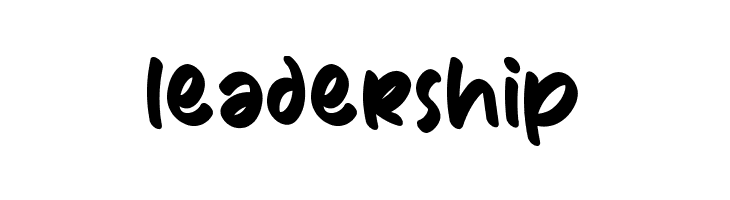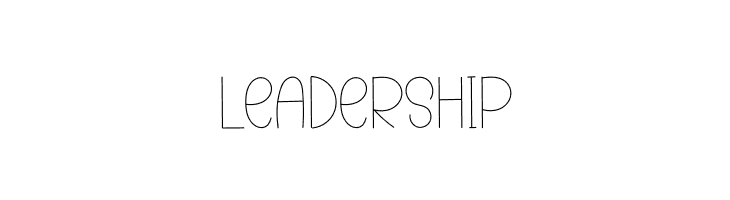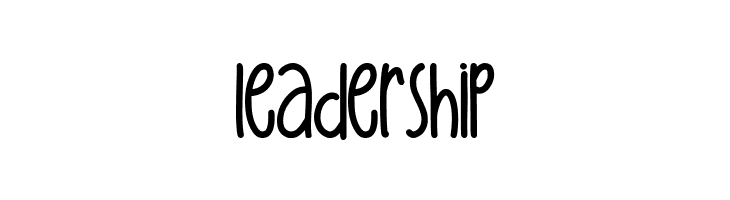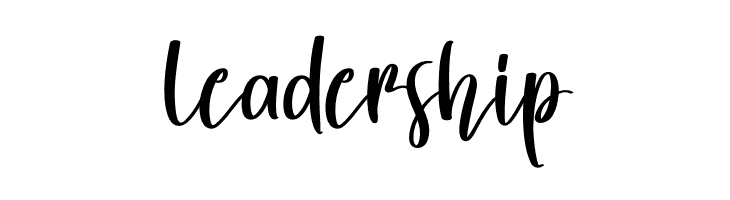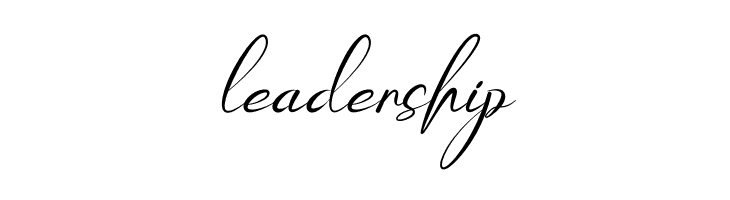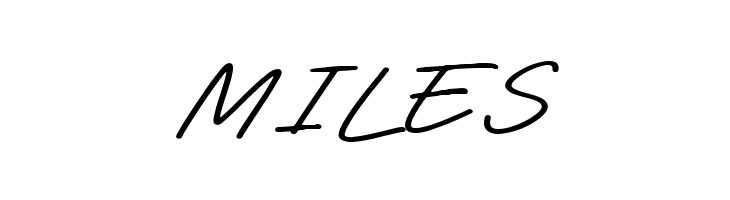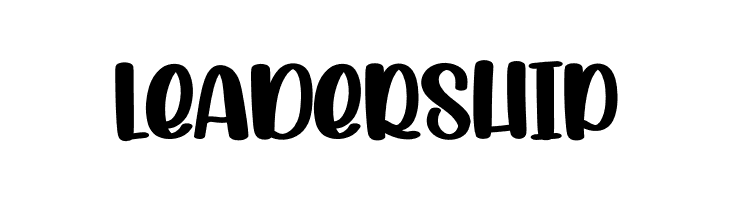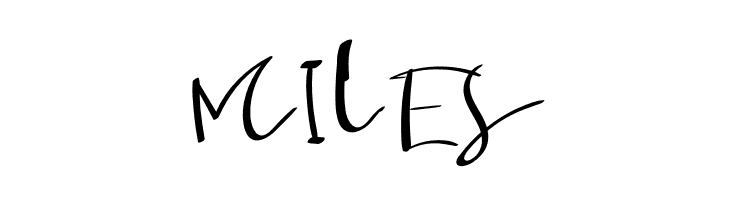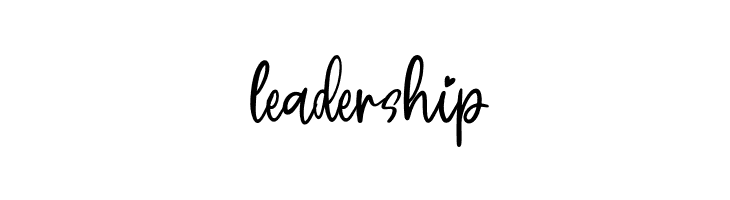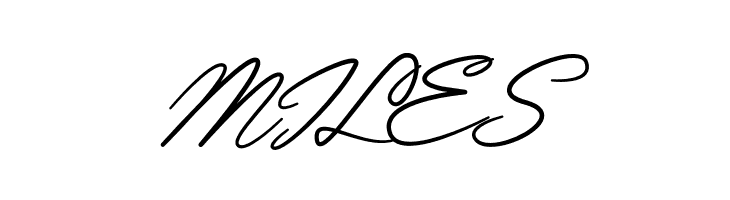
A casual, handwritten font with smooth, fluid strokes and a playful appearance.
A playful and expressive handwritten font with fluid strokes and dynamic slant.
A casual, handwritten font with fluid strokes and a personal touch.
A playful, casual handwritten font with rounded, irregular letterforms.
A lively, handwritten font with fluid strokes and dynamic character.
Handwritten-style font with a casual look.
A playful, casual handwritten font with rounded, uniform strokes.
Tall, playful handwritten font with a casual, whimsical style.
A playful, handwritten font with smooth, flowing strokes and a casual vibe.
A playful, handwritten font with a casual and artistic style.
A textured, hand-drawn font with an informal, artistic style.
A playful, handwritten font with irregular strokes and a casual appearance.
Casual handwritten script with rounded, connected strokes.
Playful handwritten script font.
A dynamic and expressive handwritten font with fluid strokes and organic shapes.
A lively, cursive font with bold strokes and a playful, dynamic style.
A bold, playful font with rounded edges and a hand-drawn feel.
A playful, handwritten font with rounded edges and a casual style.
A whimsical, handwritten script with tall, thin letters and a casual feel.
A lively and expressive script font with fluid, dynamic strokes and a handwritten quality.
A playful, hand-drawn font with an artistic and dynamic style.
Casual handwritten script with rounded, flowing strokes.
Casual handwritten font with rounded, playful forms.
A casual, handwritten script font with a friendly and flowing style.
A bold, playful script font with flowing, decorative letterforms.
Casual handwritten font with rounded, playful strokes.
Elegant cursive script font.
A playful, handwritten font with smooth, rounded edges and consistent stroke width.
A bold, playful font with rounded, hand-drawn characters.